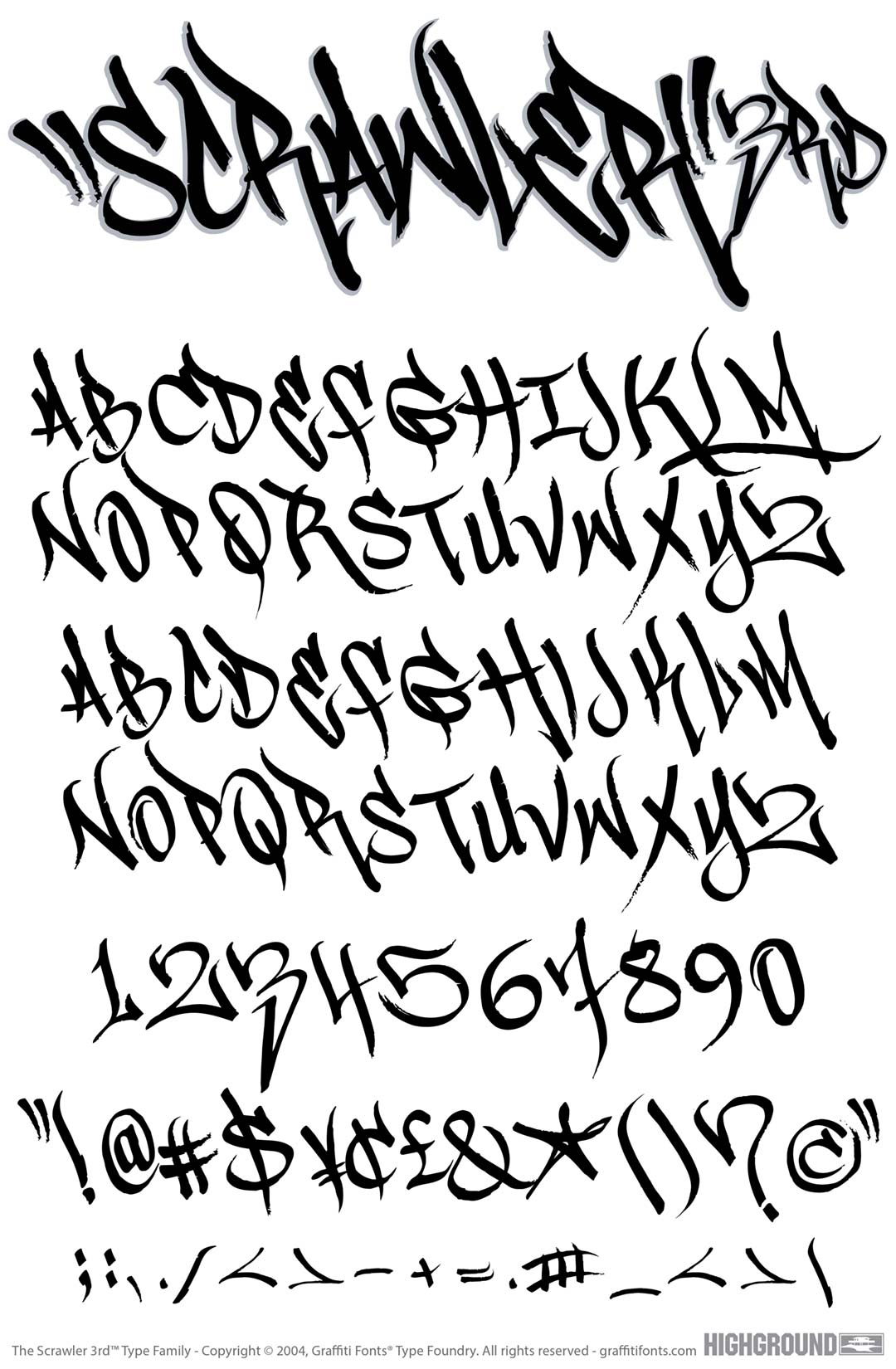
Scrawler 3rd Free
Scrawler 3rd Free Graffiti Alphabet
Scrawler 3rd Free Graffiti Font Family
Scrawler3rd is a rough tag or handstyle, chisel-tip graffiti font made to accompany our original Scrawler font. This variant can be used as a stand-alone typeface or glyphs can be mixed and matched with the main Scrawler font to add more variety. This font includes two unique alphabets, numbers, basic punctuation and symbols.